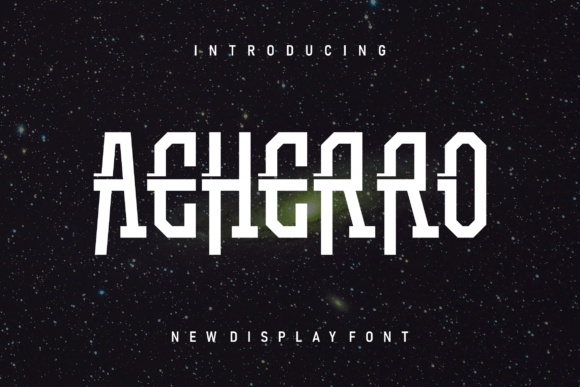
The Aeherro Font: A Modern Display Font to Elevate Your Designs
I’ll never forget the moment I stumbled upon the Aeherro font. I was working on a project for a client who needed a bold, modern display font that would make their brand stand out. I had spent hours scouring the internet for the perfect font, but nothing seemed quite right. That was until I saw Aeherro – its sleek lines and edgy vibe immediately caught my attention. I knew right then and there that it was the perfect fit for my client’s project. In this article, I’ll share with you why I love Aeherro, its features, and how to make the most of it in your designs.
Aeherro: A Cool and Modern Display Font
Aeherro is a cool and modern display font that can add a touch of sophistication to any design project. Its unique blend of sleek lines and edgy vibes makes it perfect for designers, crafters, and creative hobbyists looking to elevate their work.
My Honest Review of Aeherro
Here’s what I love about Aeherro:
- ✨ Unique and modern design: Aeherro’s sleek lines and edgy vibe make it perfect for projects that need a bold statement.
- ✅ Highly versatile: Whether you’re working on a logo, poster, or social media graphic, Aeherro can adapt to any design style.
- 💡 Easy to read: Despite its bold design, Aeherro is surprisingly easy to read, even at smaller font sizes.
And here are some small quirks to keep in mind:
- 🤔 Limited use in body text: While Aeherro is great for headlines and titles, it’s not the best choice for body text due to its bold design.
- ⚠️ May not work well with all design styles: Aeherro’s modern design may not mesh well with very traditional or ornate design styles.
The Story Behind Aeherro
Aeherro was designed by a team of typographers who wanted to create a modern display font that would push the boundaries of traditional typography. Inspired by the urban landscape and modern architecture, Aeherro’s sleek lines and edgy vibe make it perfect for designers looking to add a touch of sophistication to their work.
| Font Name | Aeherro Font |
| Author | prayoga_std |
| What is Aeherro font? | Aeherro is a modern display font designed for creative projects that need a bold and edgy touch. |
| What design styles work well with Aeherro? | Aeherro works well with modern, urban, and minimalist design styles. |